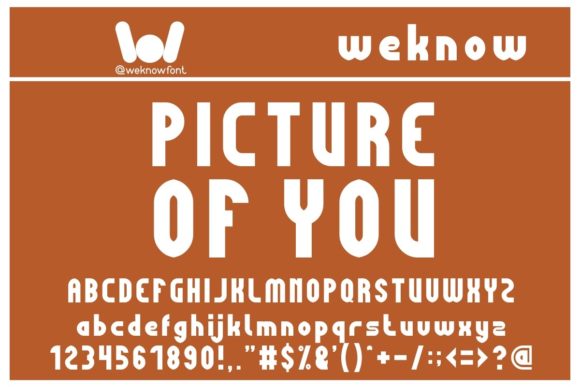
Introducing Picture of You Font, a captivating sans serif font that will make your creative projects shine. Picture of You is meticulously crafted to add a touch of sophistication and elegance to your designs. With its clean lines, beautiful curves, and distinctive character, this font is perfect for creating logos, logotypes, headlines, and so much more.
Picture of You is a versatile font that can seamlessly adapt to various design styles, from classic to modern. Its readability makes it ideal for body text, ensuring that your message is conveyed clearly and effectively. Whether you're designing a website, creating marketing materials, or crafting social media graphics, Picture of You will elevate your designs and leave a lasting impression on your audience.
Uniquely designed to cater to the needs of creative professionals, Picture of You is perfect for branding projects. It exudes a sense of professionalism and trust, making it an excellent choice for businesses looking to establish a strong brand identity. With Picture of You, you can create logos and branding materials that truly reflect the essence of your brand and leave a lasting impact on your customers.
If you're looking to make a statement with your YouTube channel, Picture of You is the perfect font for your logo. Its striking appearance will capture the attention of viewers and leave a lasting impression. Whether you're creating videos about fashion, travel, technology, or anything in between, Picture of You will help your channel stand out from the crowd and attract new subscribers.